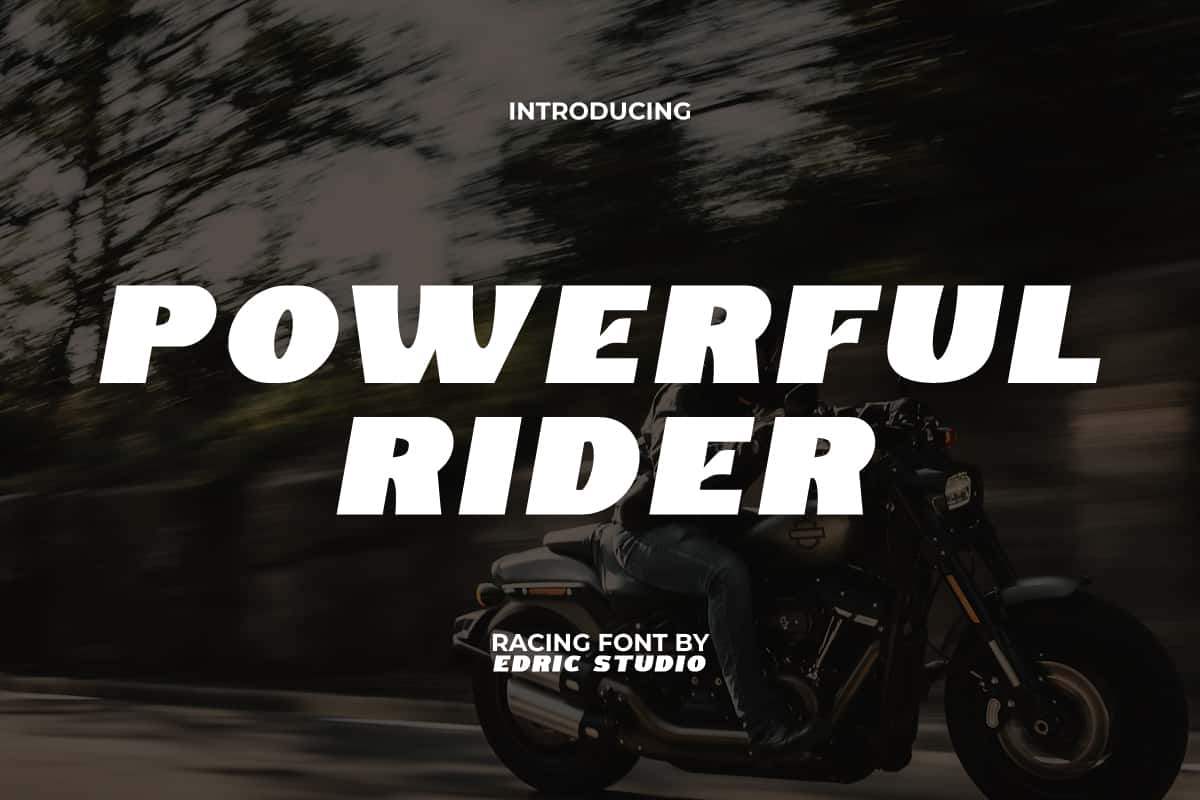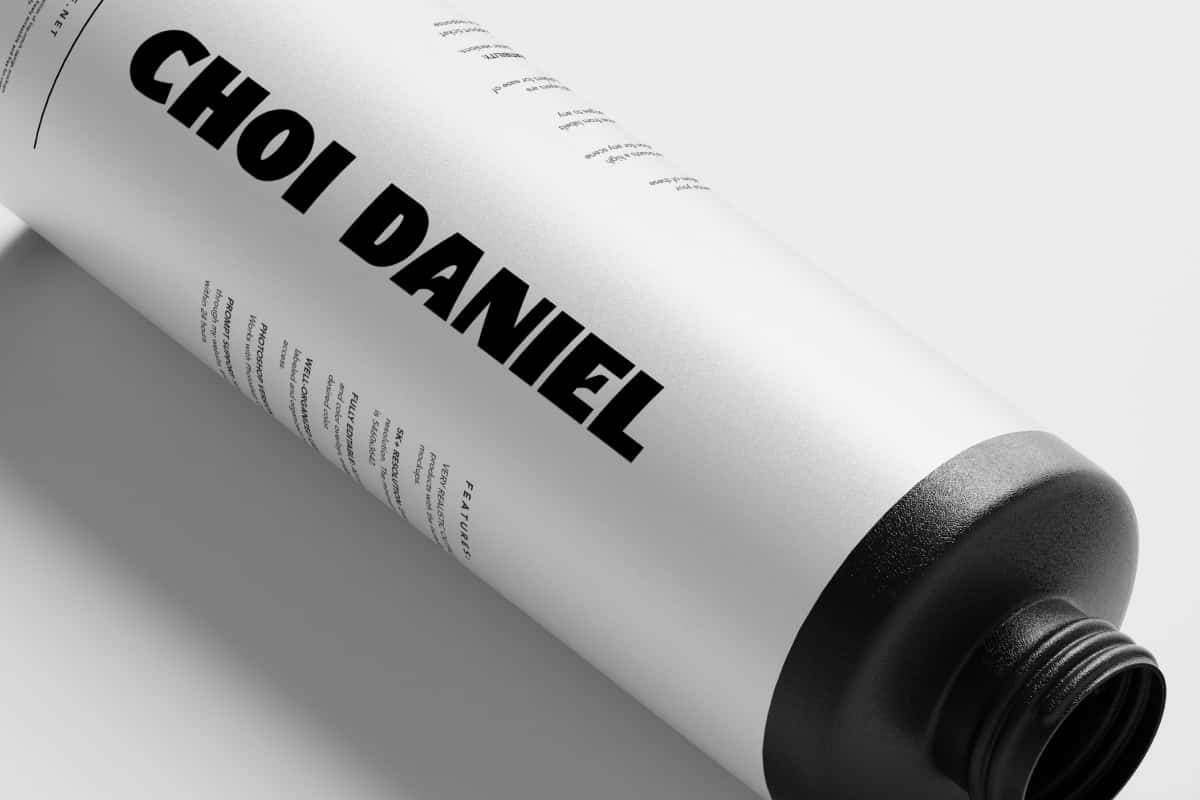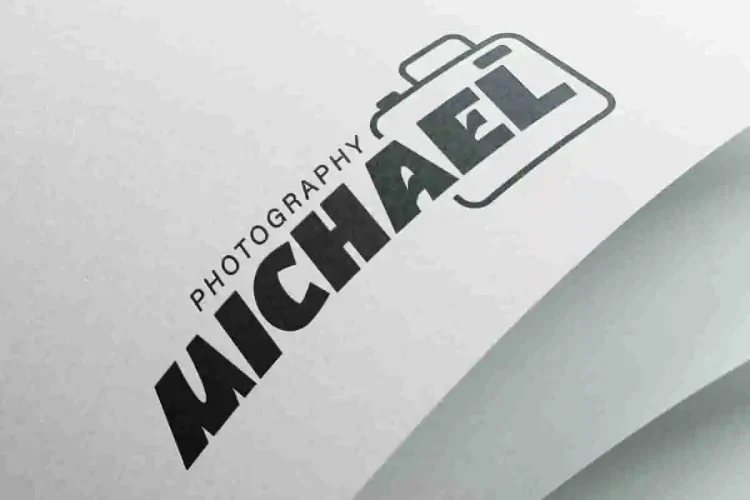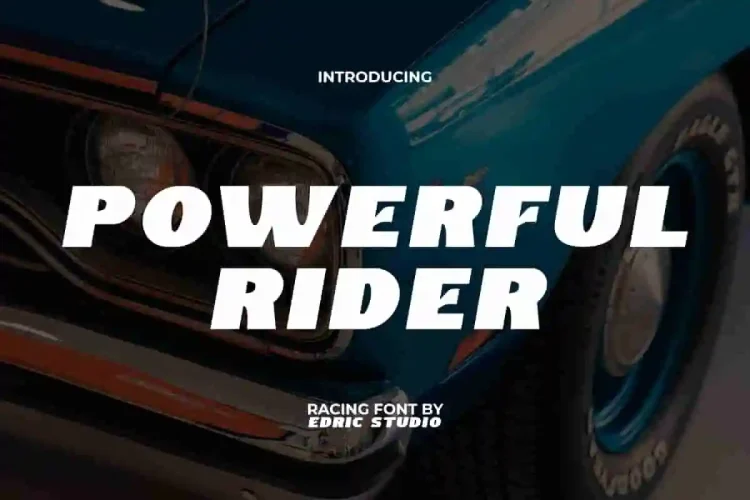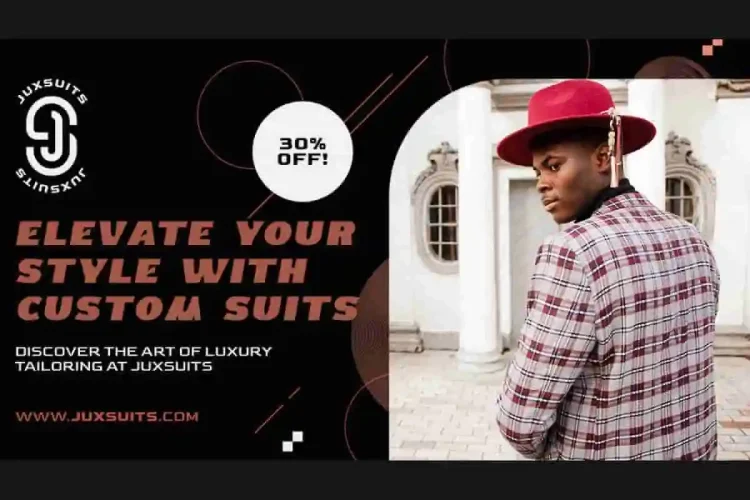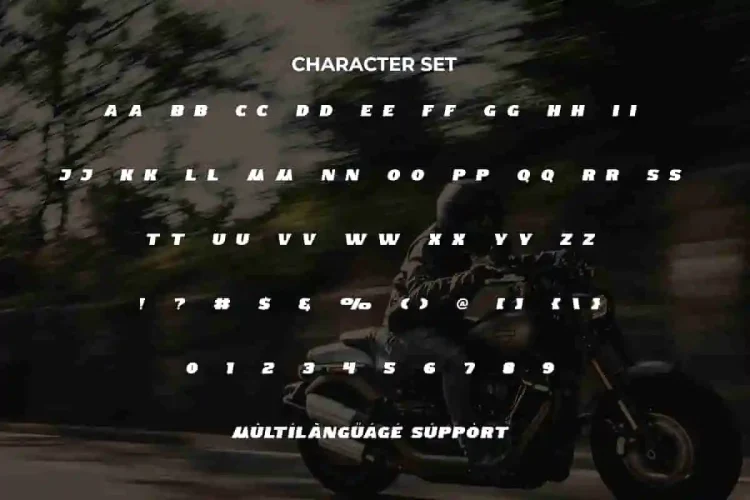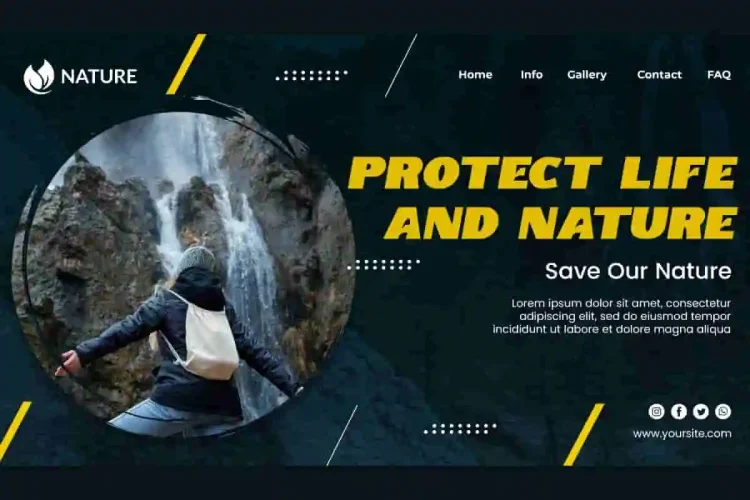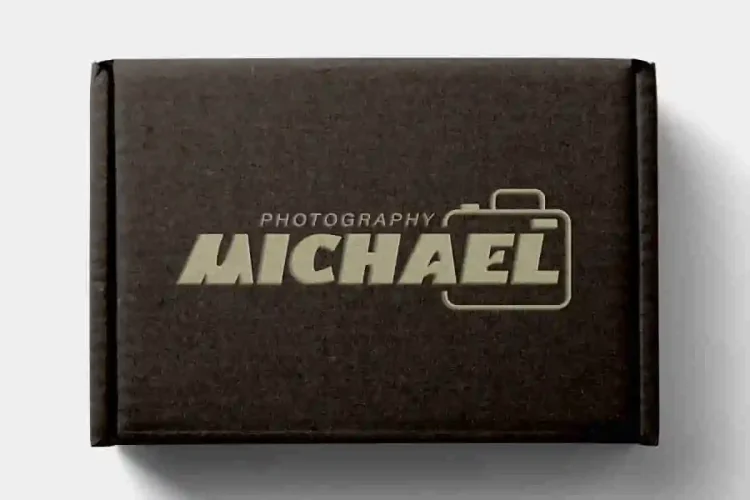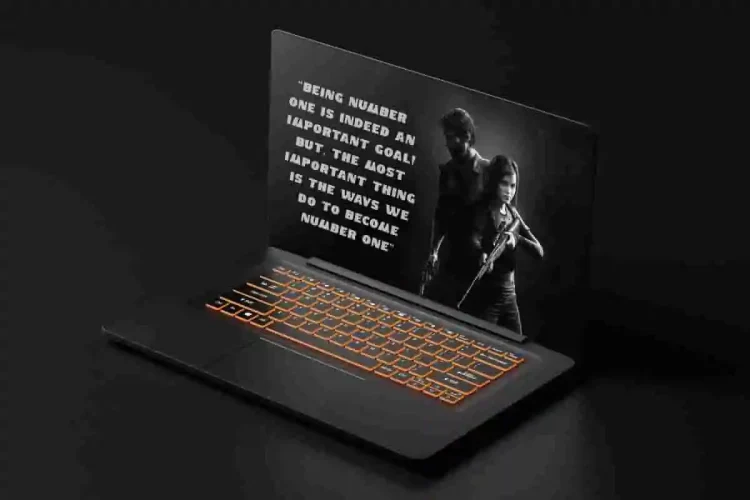
Powerful Rider Authentic Font
Powerful Rider Font is an authentic and eye-catching racing font. This sans serif bold and unique display font is thoughtfully designed to transform a variety of creative contexts by infusing a dynamic aesthetic to capture the adrenaline-fueled spirit of racing. The font is suitable for apps, banners, billboard, blogs, brand logo, brochure, mockup, packaging, poster, printed materials, stationery, template, title, website, and more.
Powerful Rider Font includes a complete set of ALL CAPS for both Uppercase and Lowercase letters, Numbers, Punctuation, and Symbols. This font embodies the essence of automotive and sports design, conveying a sense of power and speed. In a unique and sturdy character form, it is the perfect choice to ensure flexibility across multiple platforms and media. perfect for accessories and merchandise, cigarette company, clothing brand, craft, dealer and showroom, fashion, games, graphic design, outdoor recreation agency, photography, and many more.
Powerful Rider Font also supports multilingual characters which are ready to use either on Windows or Mac machines with a simple installation. Combine different characters for a bespoke, handcrafted feel. All of these characters are available through the glyph panel, moreover each letter has its own unicode (PUA) so you can access all the characters easily.